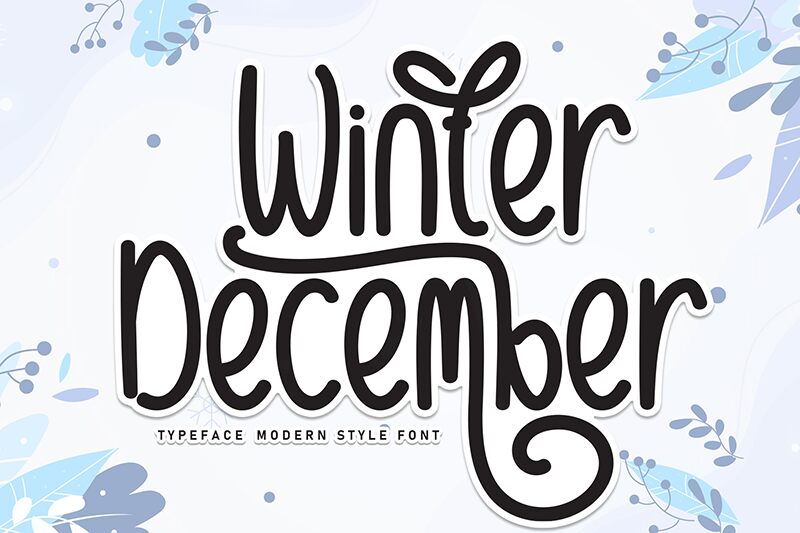
Winter December
Winter December font is a captivating handwritten condensed font by Scratchones. The friendly letters, often with a natural cursive slant, come together to make every word they form approachable and casual. This all happens while simultaneously maintaining modernity and style expected from any high-end font out there.
Free for personal use, Winter December can find its place in logos, posters or cards designed for personal projects. It performs well in wedding invitations, envelopes addressing, packaging ideas and branding designs of all sorts and sizes from small to medium. Instagram stories as well as other social media content will elevate the look of their typography style when implementing this script into headlines or interface text.